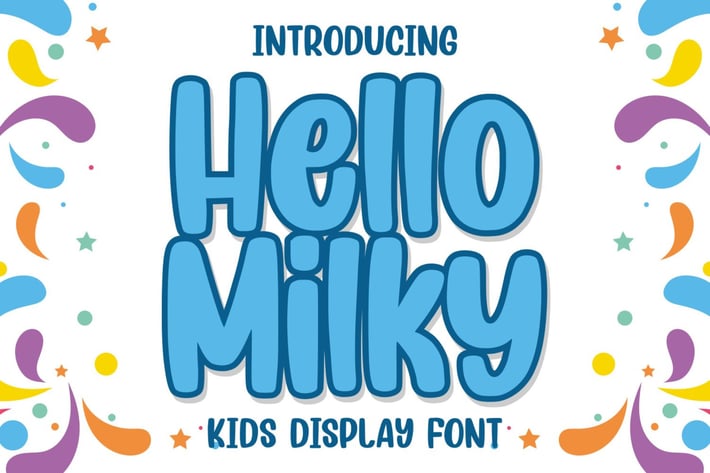
Hello Milky - Kids Display Font
Welcome to: Hello Milky - a Kids Display Font
It's smooth, it's funny, it's fun, and it's very nice: it's Hello Milky - a Kids Display Font Mixed fonts with many possible combinations.
Letter Kids is the perfect font for all your fun designs. The main font file is equipped with ordinary characters (A-Z, a-z, 0-9, ligature), as well as more than 300+ glyphs to support most Latin-based languages.
Everything is made with the same brush, and everything is the same size as Hello Milky, so you can be sure they will work well together! It is suitable for you to use in making t-shirt design, quote, label, packaging, logo type, or long writing. Because we have compiled kerning and matrices that are tailored to your needs.
Hello Milky feature:
Ligature Support
More than 300+ glyphs